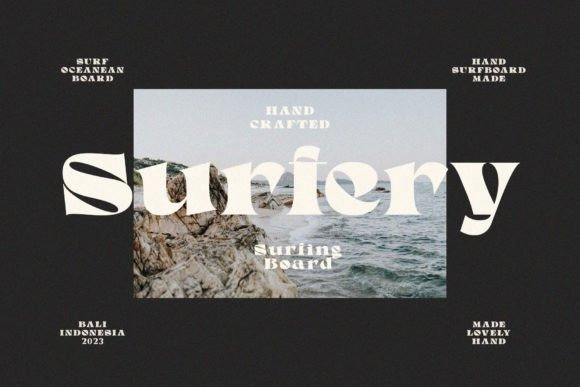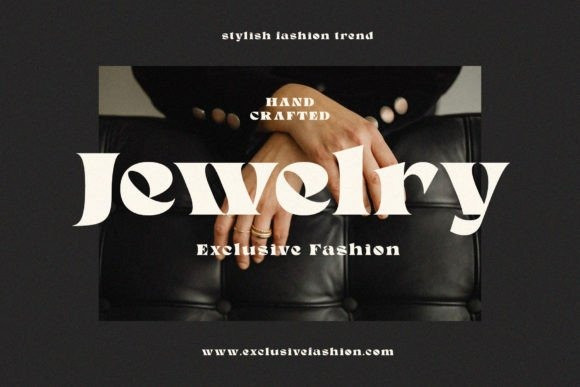
Calby Font
Calby Font is a new, elegant serif font family that contains two styles of fonts, regular and italic. Whether you’re looking for something simple and modern to add some personality to your designs or something more extravagant and formal to stand out from the crowd.